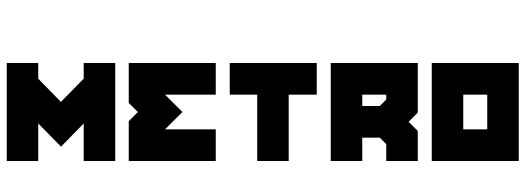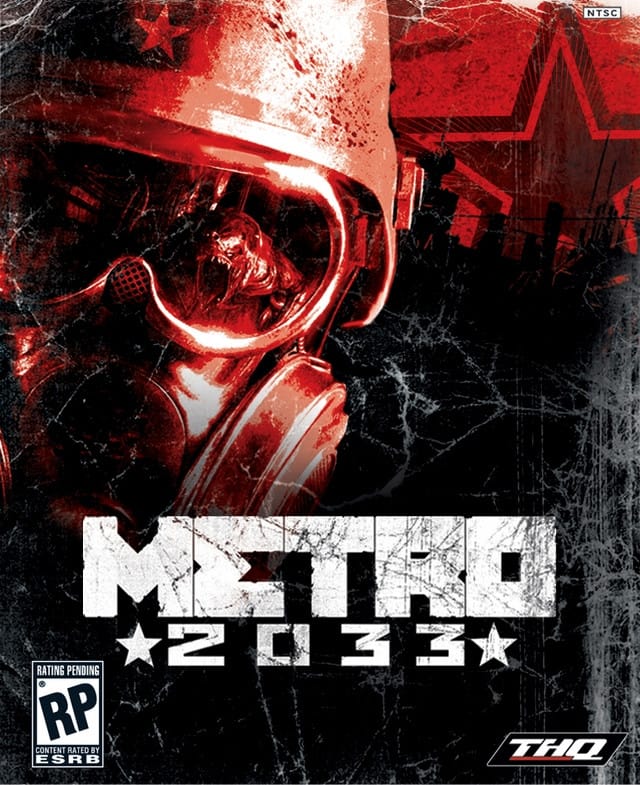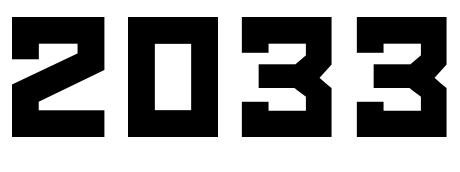
Metro 2033 Font
Fonts in UseMetro 2033 is a first-person shooter video game set in a post-apocalyptic world where players must navigate a dangerous underground metro system while battling mutated creatures and hostile factions.
The box art cover of the game showcases a logo featuring a grungy geometric sans-serif font that closely resembles Sergey Kazakov's Agit Prop font. Additionally, the "2033" portion of the logo resembles Neogrey Creative's free square sans-serif font called Red October. Both fonts are available for free download from the Fonts Used Section.